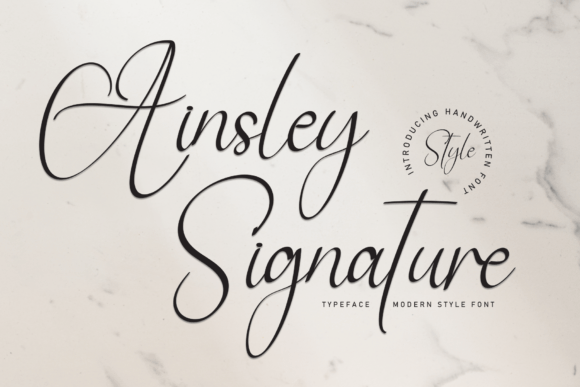
Embrace the world of modern calligraphy with Ainsley Signature Font, a masterpiece designed to capture the essence of elegance and sophistication. This exquisite script typeface boasts a unique flow and personality, adding a touch of charm to your creative endeavors.
Indulge in the versatility of Ainsley Signature Font, a font crafted to meet the demands of a wide range of design projects. Let your imagination soar as you explore its endless possibilities. Whether you're designing captivating logos, crafting unforgettable branding, or creating stunning covers and posters, Ainsley Signature Font has you covered.
Journey through the realm of creativity with Ainsley Signature Font, a font that empowers you to express your individuality and make a lasting impression. Its graceful curves and elegant strokes will elevate your designs, leaving your audience captivated and inspired.
Discover the beauty of written words transformed into visual art with Ainsley Signature Font. Elevate your brochures to new heights, captivating your readers with the allure of carefully crafted typography. Let your words dance across the page, leaving an unforgettable impact that speaks volumes about your attention to detail.
Immerse yourself in the world of limitless creativity with Ainsley Signature Font. Its versatility knows no bounds, adapting seamlessly to your diverse design needs. Unleash your imagination and explore the endless possibilities, crafting designs that reflect your unique style and vision.
Ainsley Signature Font: The Epitome of Elegance and Versatility.